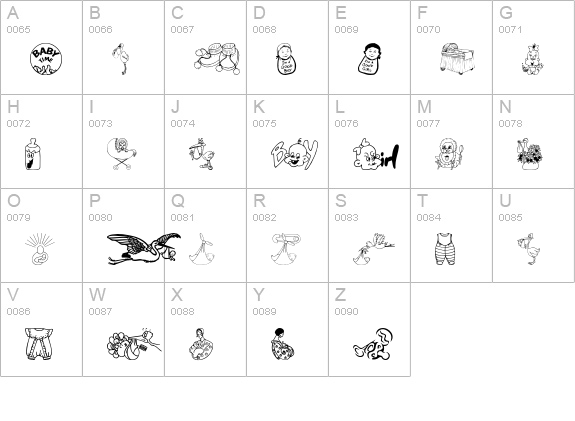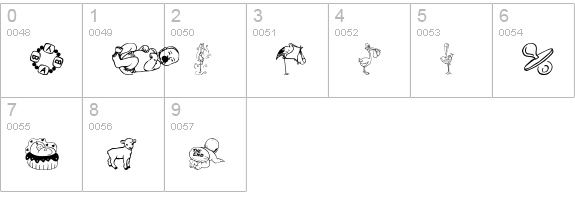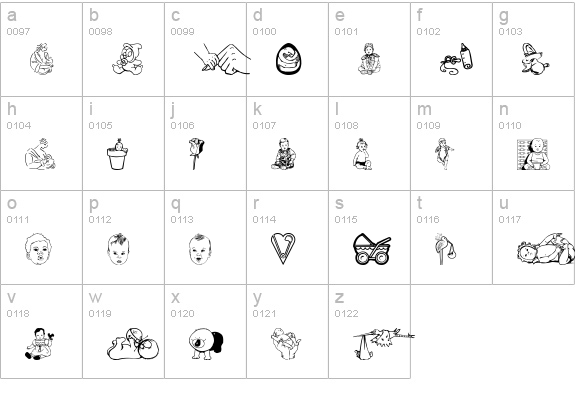
Introducing Baby Time font, a whimsical and charming typeface that is perfect for all your baby-related designs. This adorable font is sure to bring a touch of sweetness and innocence to any project. With its playful curves and delicate strokes, Baby Time font captures the essence of childhood with its youthful and cheerful demeanor. Whether you're creating birth announcements, baby shower invitations, or nursery wall art, this font will add a delightful touch to your designs. But what makes Baby Time font even more special is that it is available for free! Yes, you read that right. This lovely typeface can be downloaded at no cost from FontsMarket.com, making it easily accessible to designers and parents alike. So go ahead and add a touch of joy and wonder to your next project with Baby Time font. Let its whimsical charm and free availability bring your baby-themed designs to life. Download it today and watch as your creations come alive with the magic of childhood.